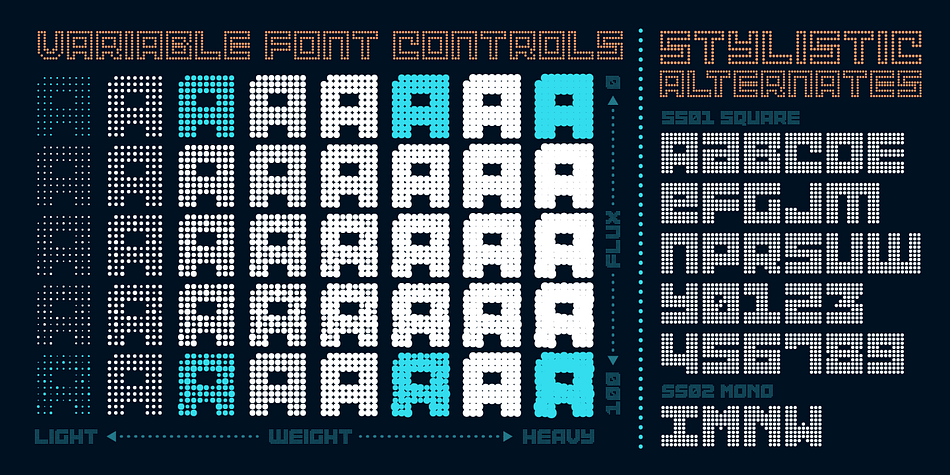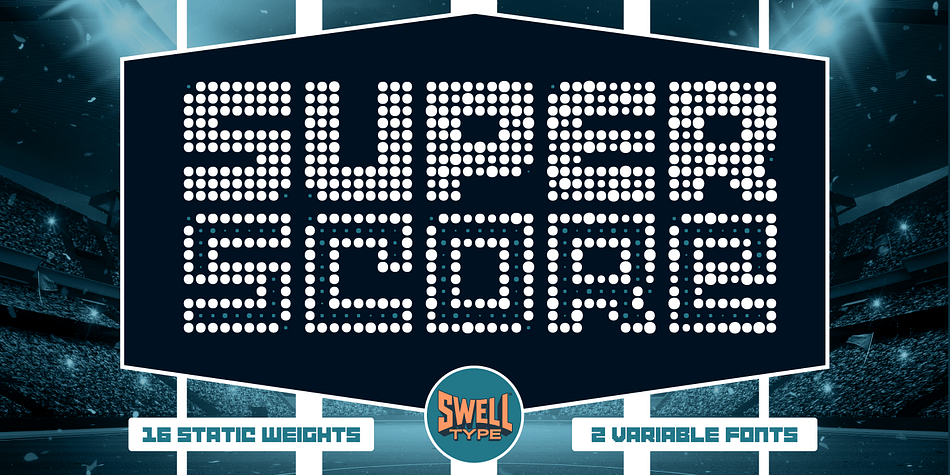
Superscore
Designed by John Roshell, Superscore is a pixel font family. This typeface has twenty-eight styles and was published by Swell Type.
Inspired by 1970s & ’80s stadium displays, Superscore is a display font alight with vintage vibes and modern features!
Superscore includes 16 static weights and two Variable Fonts. Each weight features two sets of Stylistic Alternates (Square and Mono), support for 221 languages, and an economical three (count ‘em) kerning pairs.
Use the Variable controls to set the brightness and amount of “Flux”, or variation, in the brightness. Animate to create glowing & sparkling effects!